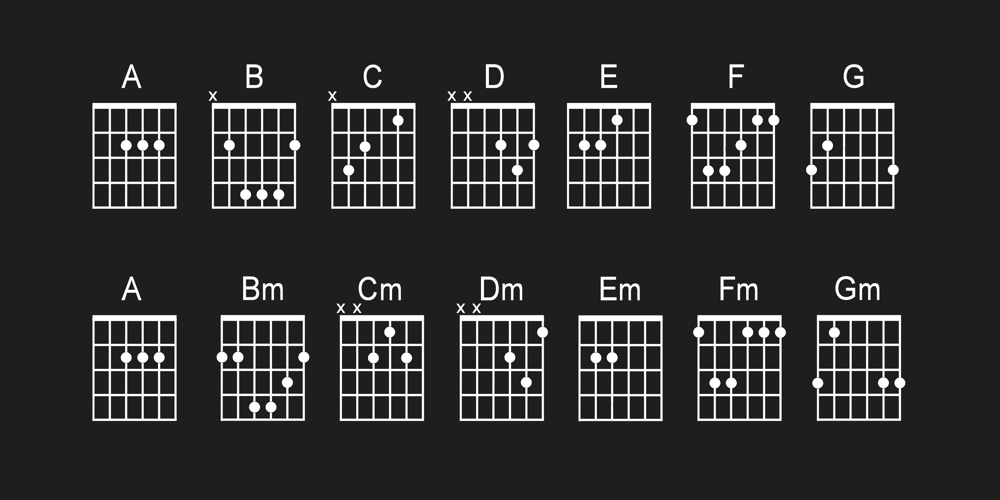
Chordette for Guitar Font Family was designed by Jonathon Baxter and published by Ukefarm. Chordette for Guitar contains 8 styles and family package options. DescriptionChordette for Guitar Chord Fonts are tuned EADGBE. Create a guitar chord chart or chord sheets quickly and easily.Guitar Chord FontsChordette contains high quality guitar chord fonts. Each guitar chord is mapped to a specific key on the keyboard, so you can type out chords. It’s a lot easier than dealing with images to create a guitar chord chart or song sheet. It’s a favorite tool for teachers, music therapists, and musicians.What instruments are supported?Chordette for Guitar is tuned EADGBE and supports Guitar.Chordette is available in multiple tunings for most stringed instruments. Most versions of Chordette support multiple instruments.App / Instruments Supported / TuningChordette for Guitalele / Guitalele, Baritone Guitar / ADGCEAChordette for Ukulele / Concert Ukulele, Banjolele / GCEAChordette for Soprano Uke Soprano Ukulele ADF#BChordette for Baritone Uke / Baritone Ukulele / DGBEChordette for Mandolin / Mandolin, Irish Tenor Banjo, Irish Bouzouki / GDAEChordette for Banjo / Banjo /gDGBDChordette for Tenor Banjo / Tenor Banjo, Tenor Guitar, Mandola / CGDAChordette for Guitar / EADGBEEach version of the Chordette font uses the same chord sets and keyboard mappings. If you play multiple instruments, you can create a chord sheet for one, then use another Chordette font to transpose the song to another.For example, you can create a song for Mandolin, then instantly transpose it for Guitar and Ukulele – just by changing fonts!Chordette for Guitar is priced at $20, which includes the guitar chord font sets for both Mac and Windows.